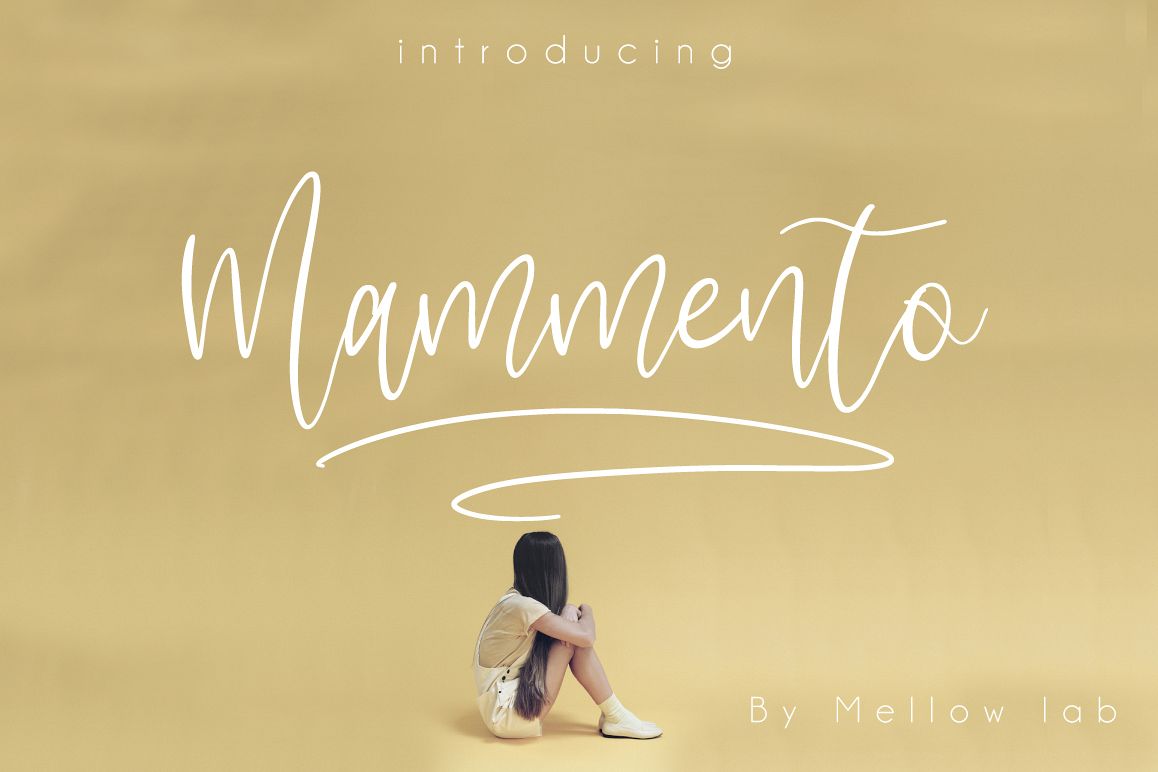
Mammento
Mammento Script
It's hand lettered brush script font. With this type, you will see a lot of interesting extras.
This brush font is ideal for branding and decorate your any project.This font are perfect for wedding menu or travel company branding. Also with their help, you can create a logo or beautiful frame for your home. Or just use for your small business, book covers, stationery, marketing, magazines and more.
Mammento Script